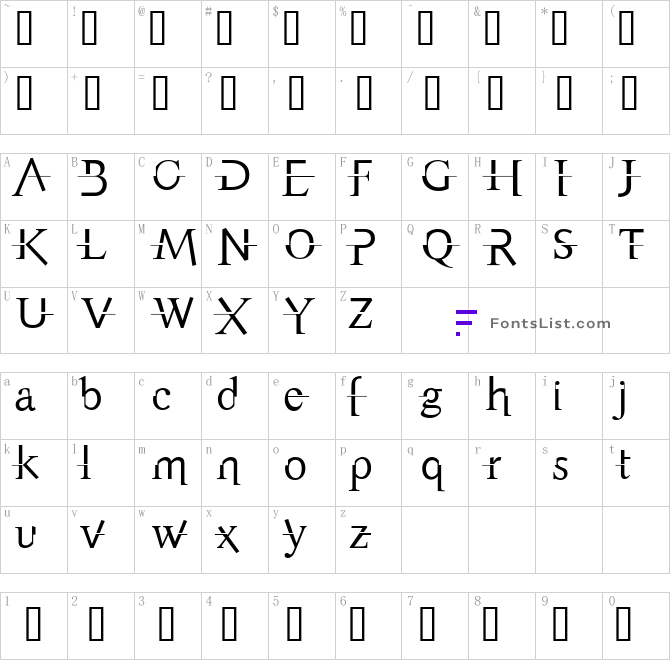
- Font Name:Appendix
Appendix-Normal.ttf is a very beautiful artistic font, Appendix-Normal.ttf is widely used in the design and printing of various books and pictures,Appendix-Normal.ttf has a strong visual impact,Appendix-Normal.ttf is a commonly used font in newspapers, magazines and books, and is used in posters, e-commerce Poster design, store design, logo design, font design and other fields.Appendix-Normal.